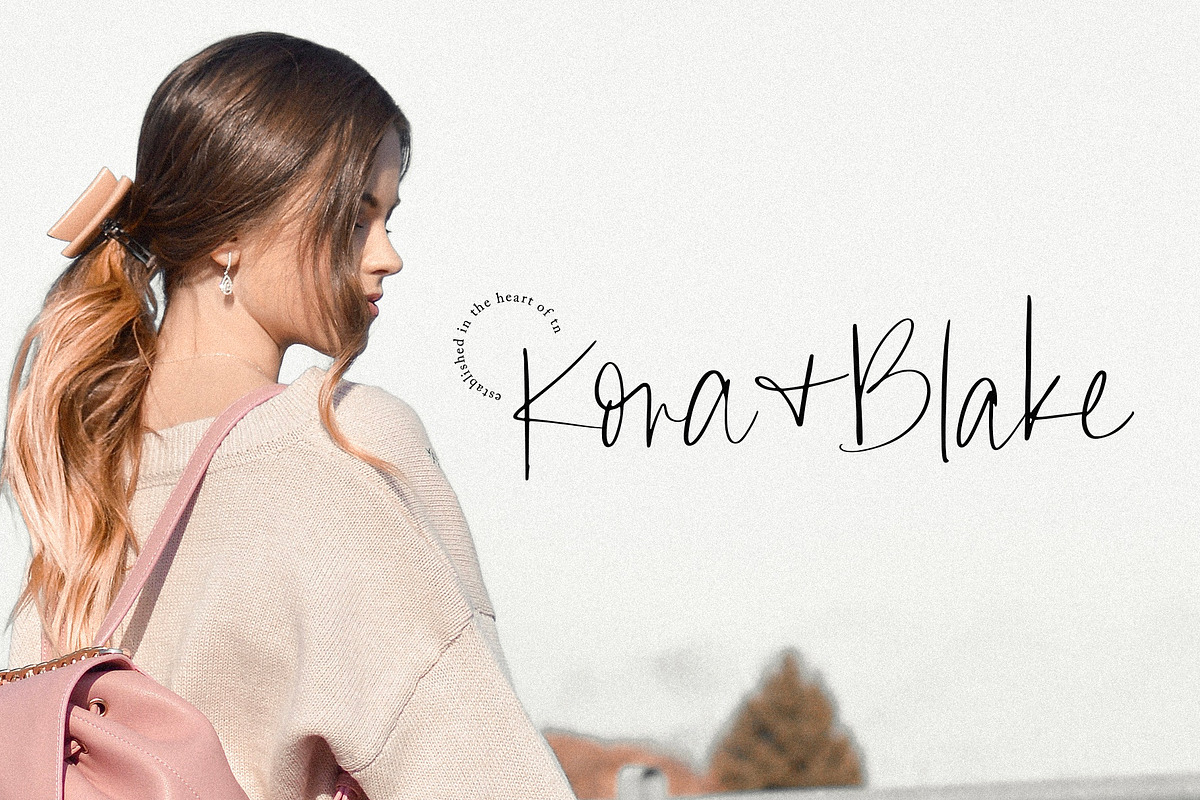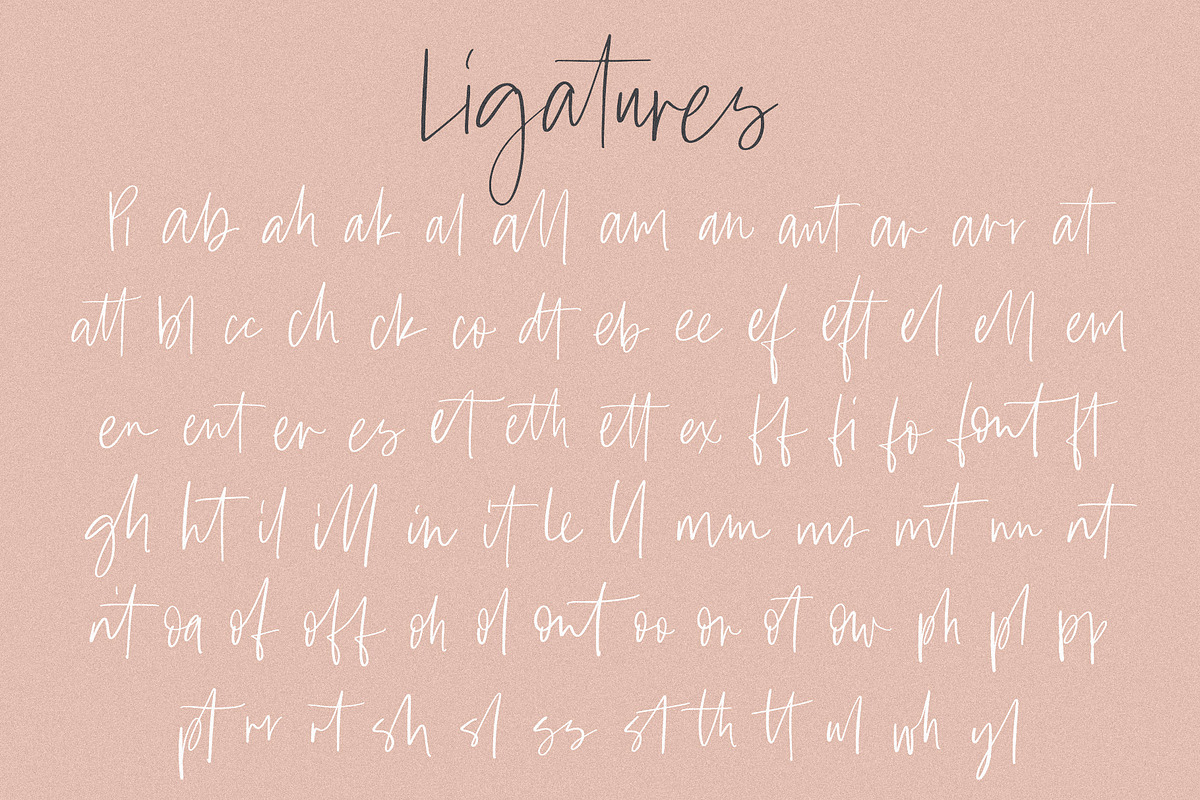
Amaro | Script + 6 Free Logos
Amaro (formerly Amalfi) is a messy, feminine, carefree script that is perfect for logos, posters, signage, and more! Because of how much I love using this font for logos, I've included all of the 6 logo templates you see in action in the samples in Illustrator, Photoshop, and .eps formats.
Comes with 79 ligatures for a totally unique hand-written feel!
- Upper + Lowercase Letters w/ alternates
- Non-English support
- 79 Ligatures
Best for:
- Logos
- Branding
- Large format writing
- Feminine look + feel
- Paired with sans serifs (Proxima Nova, Bebas) and classic serifs (Adobe Caslon, Baskerville)
- Web headers
- Signage
- Wedding invitations and decor (table numbers, signage, balloons, etc.)
Not best for:
- Small printing
- Long quotes (generally flows better with just a few words)
- Patterned backgrounds